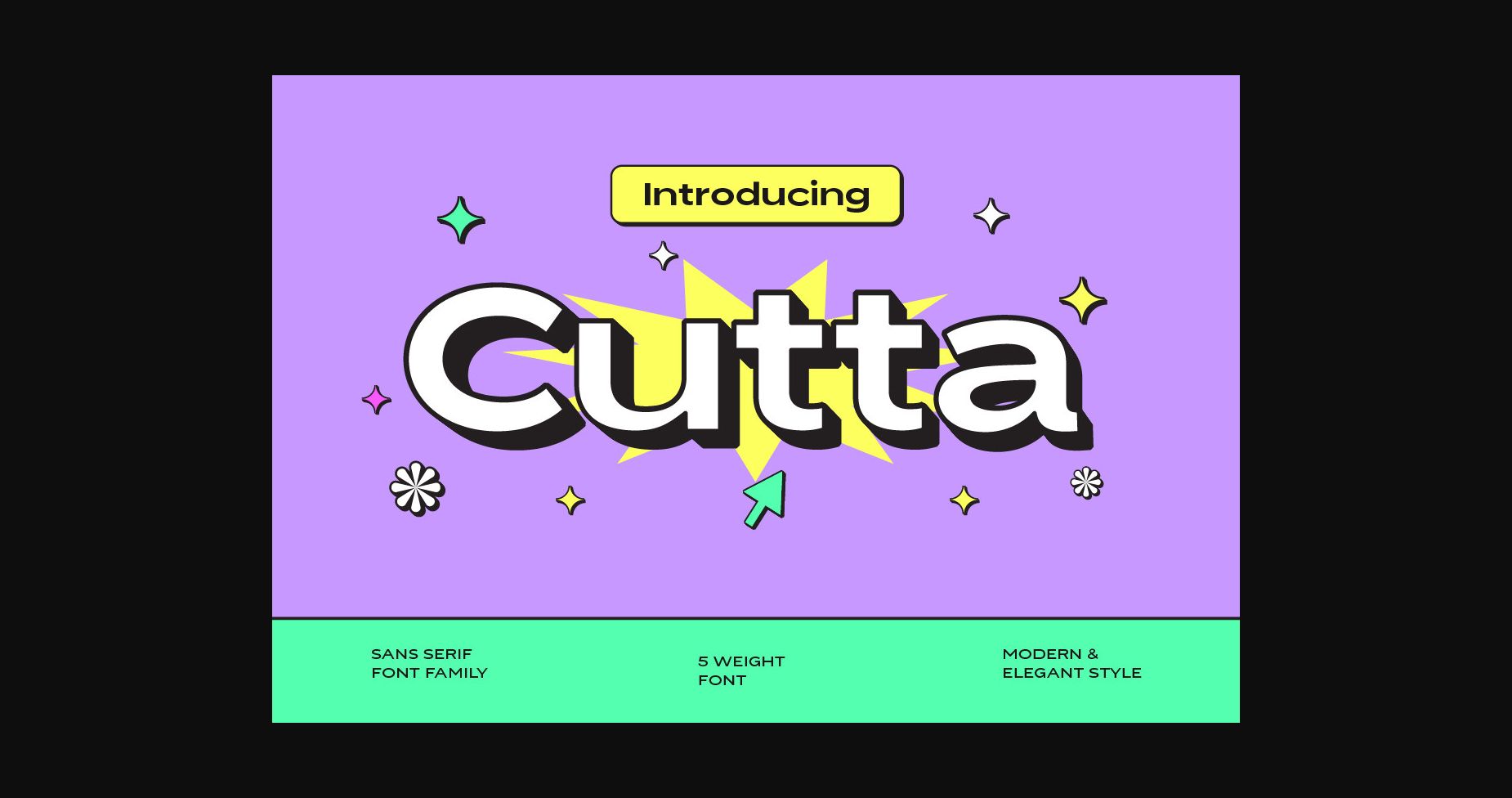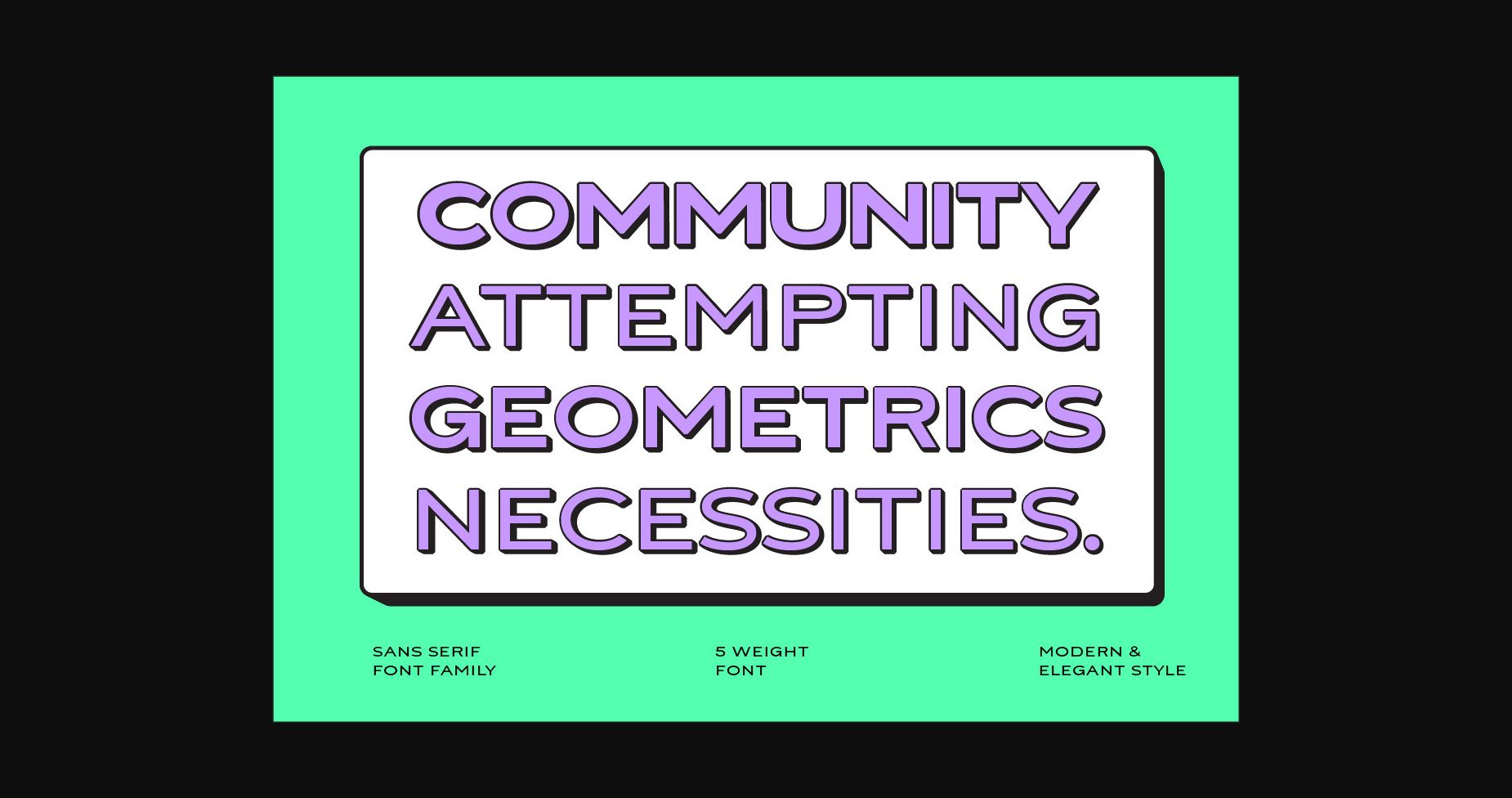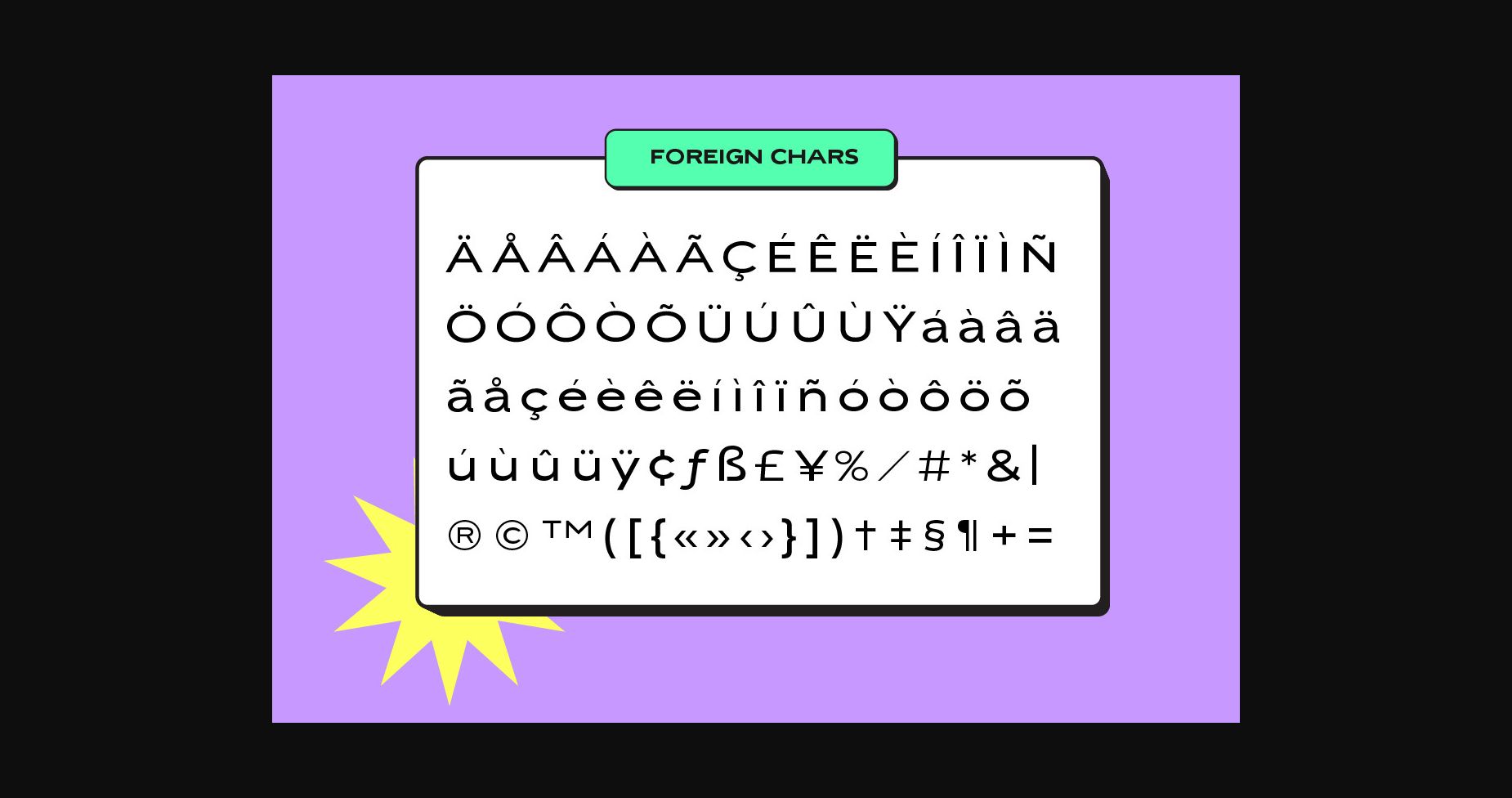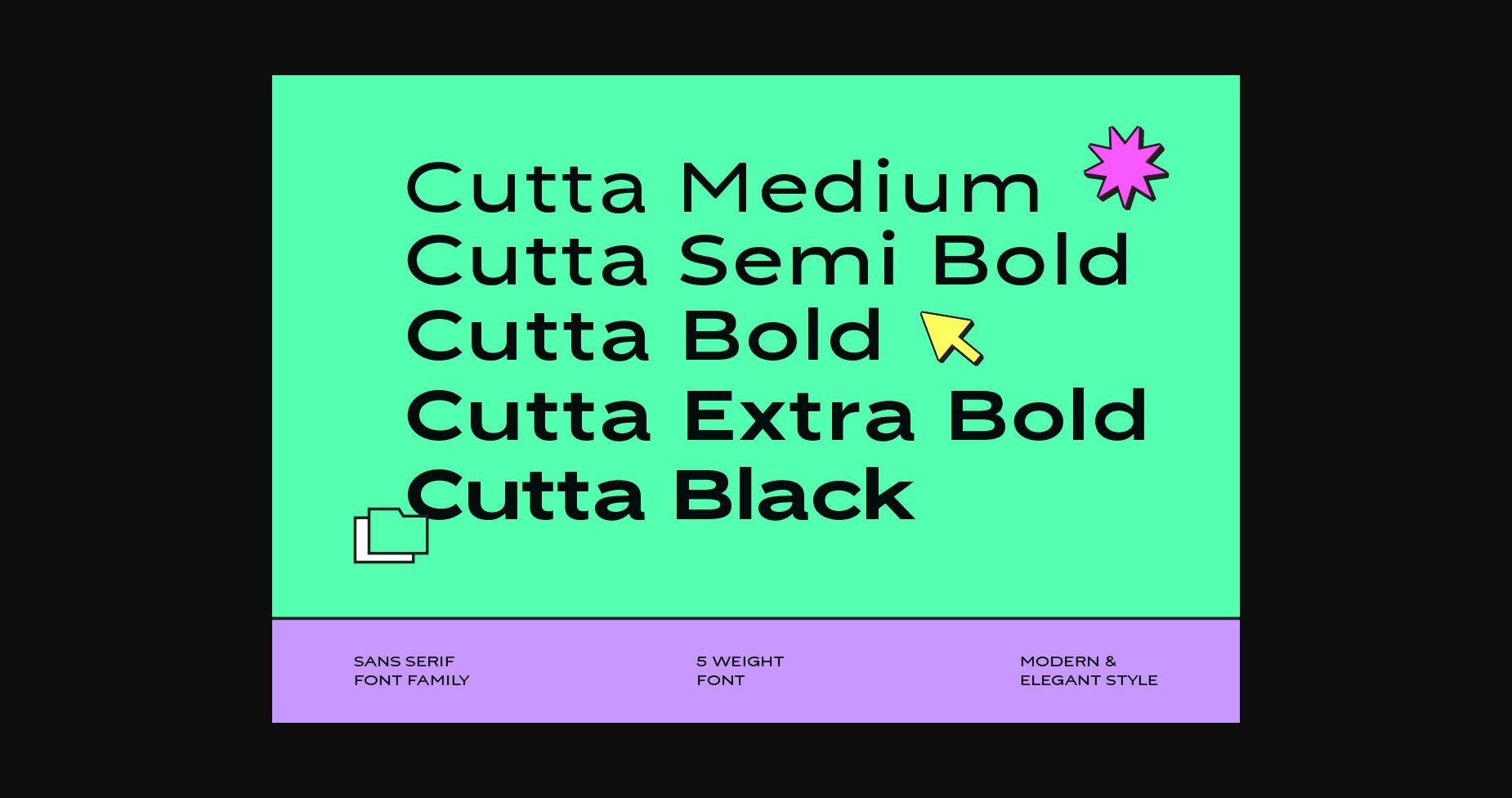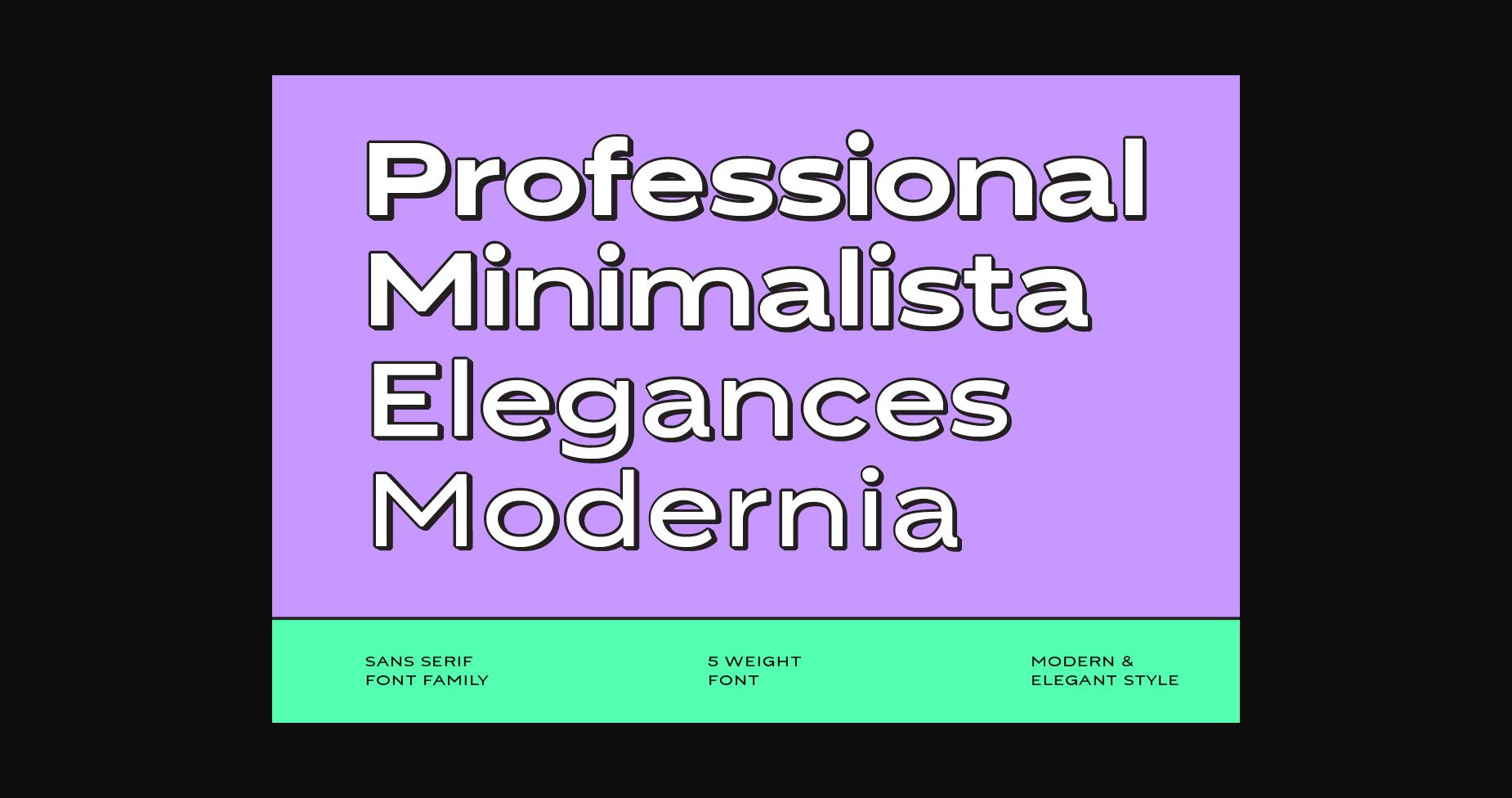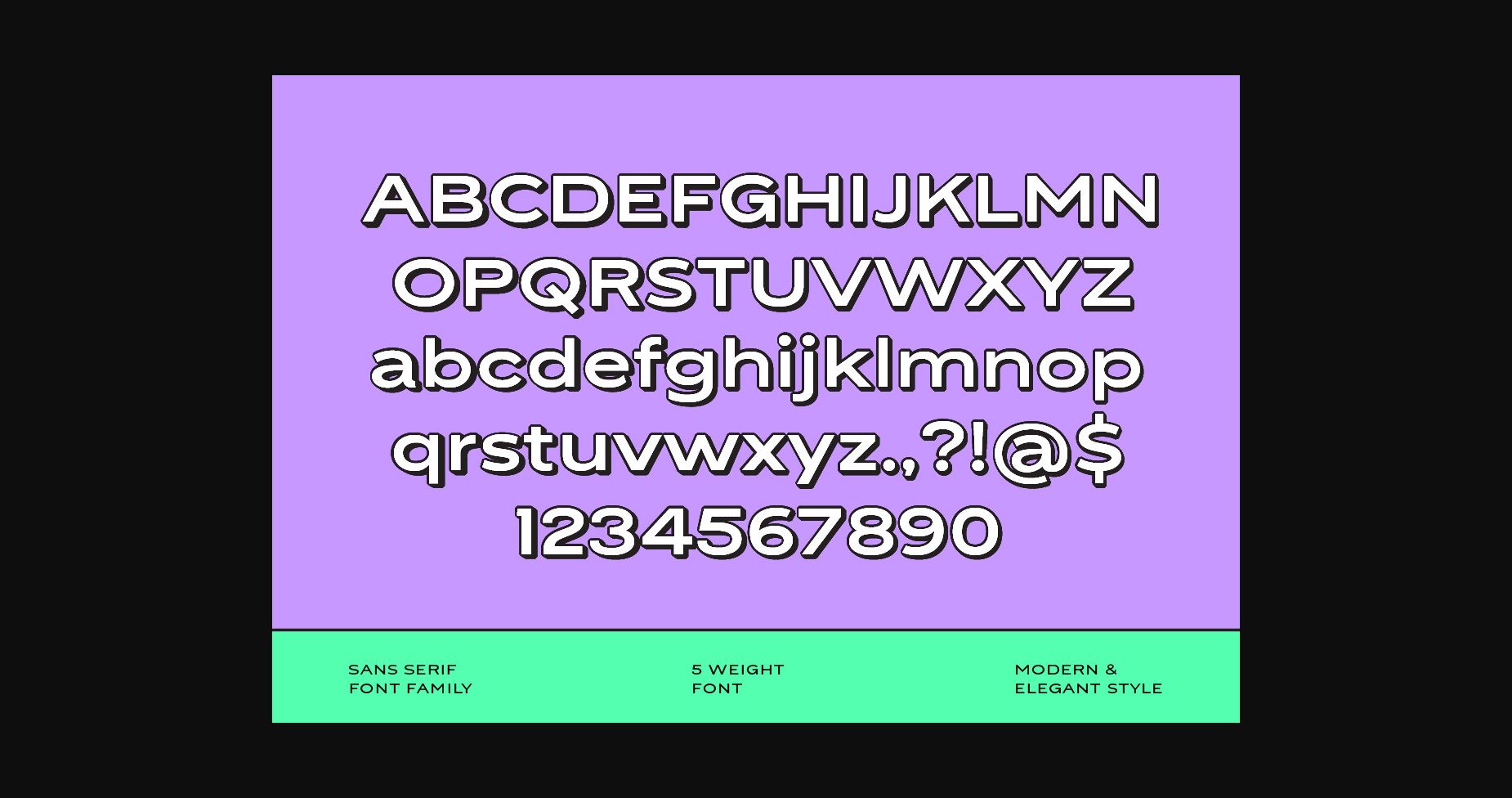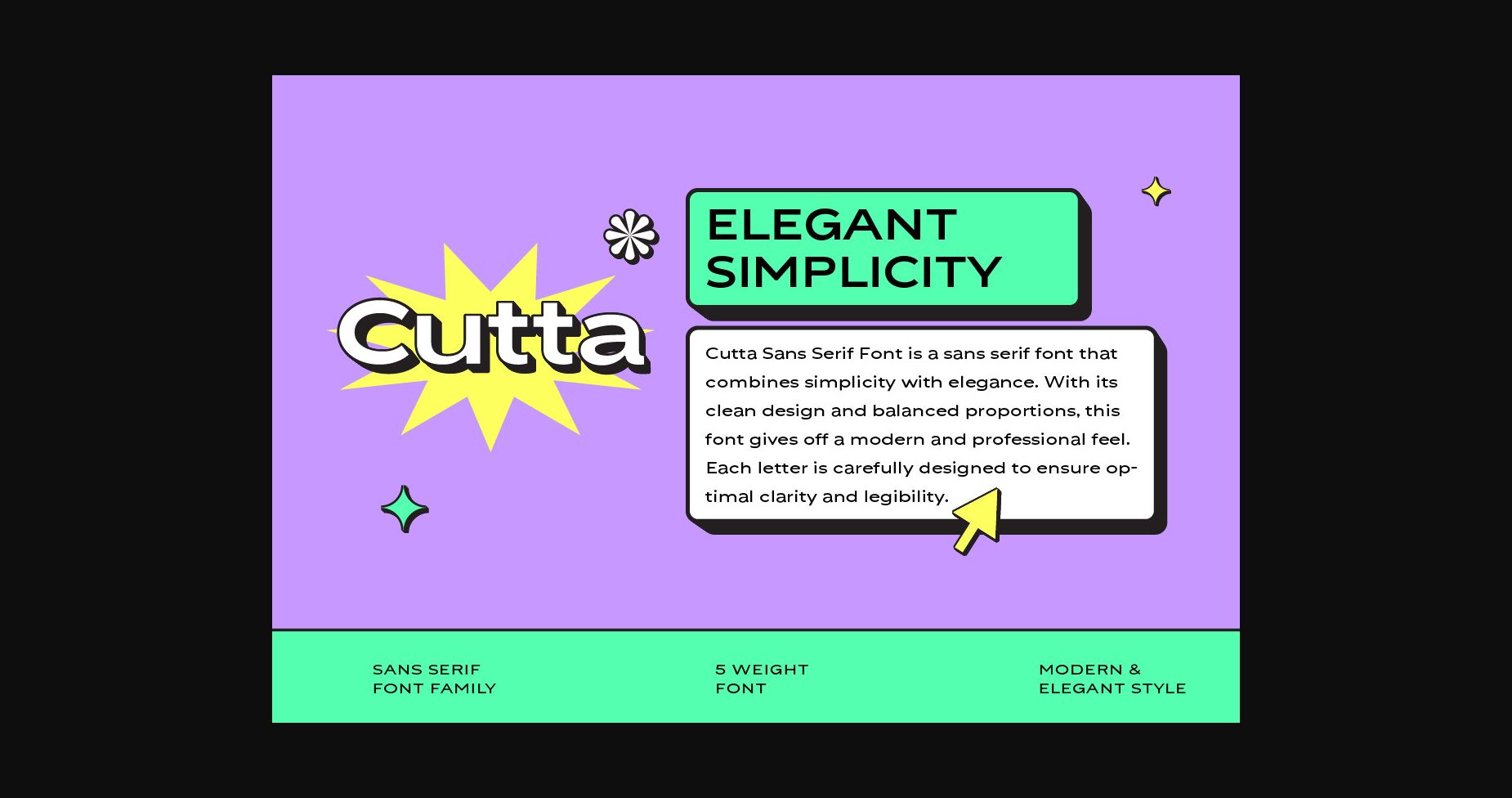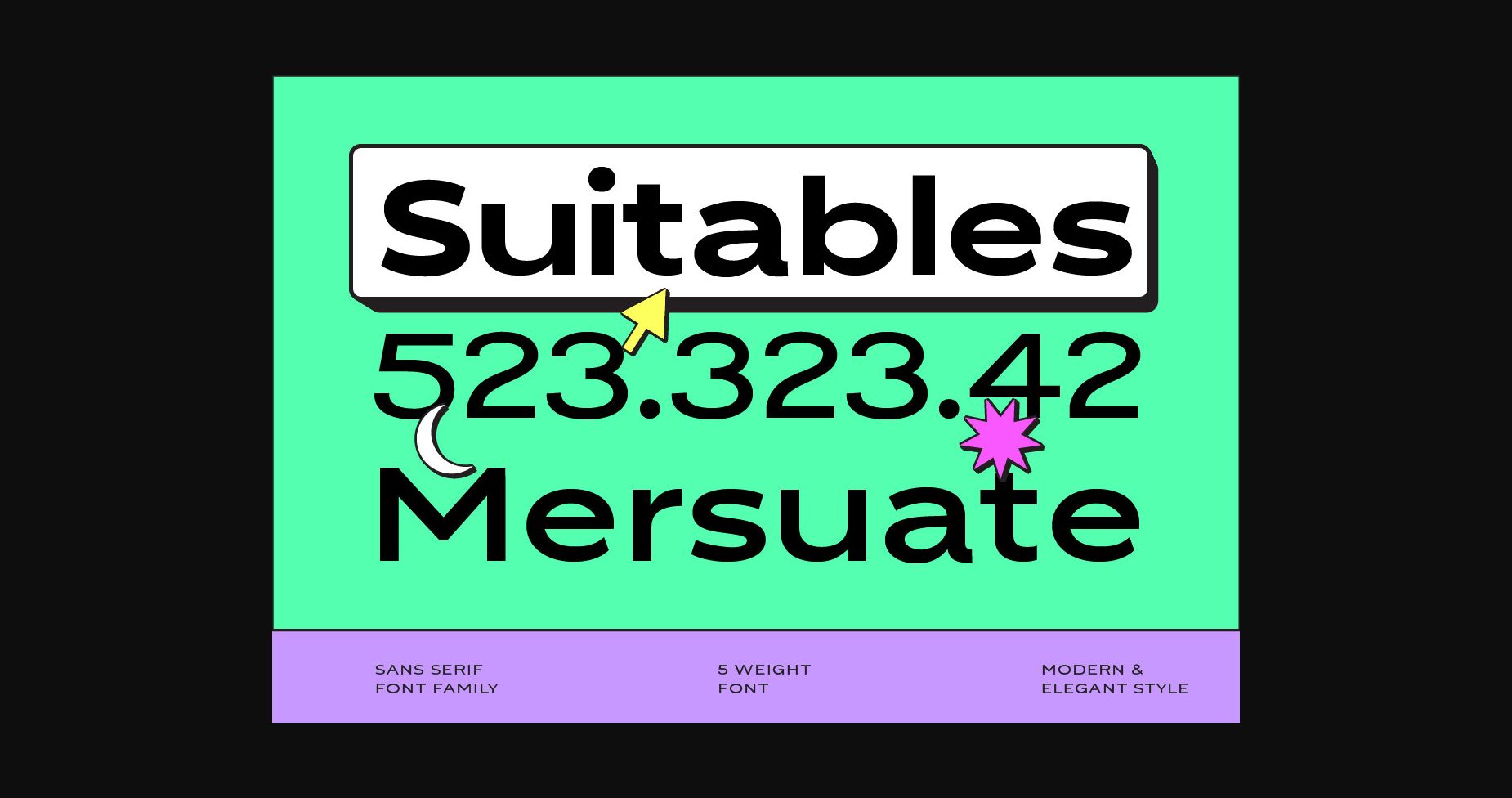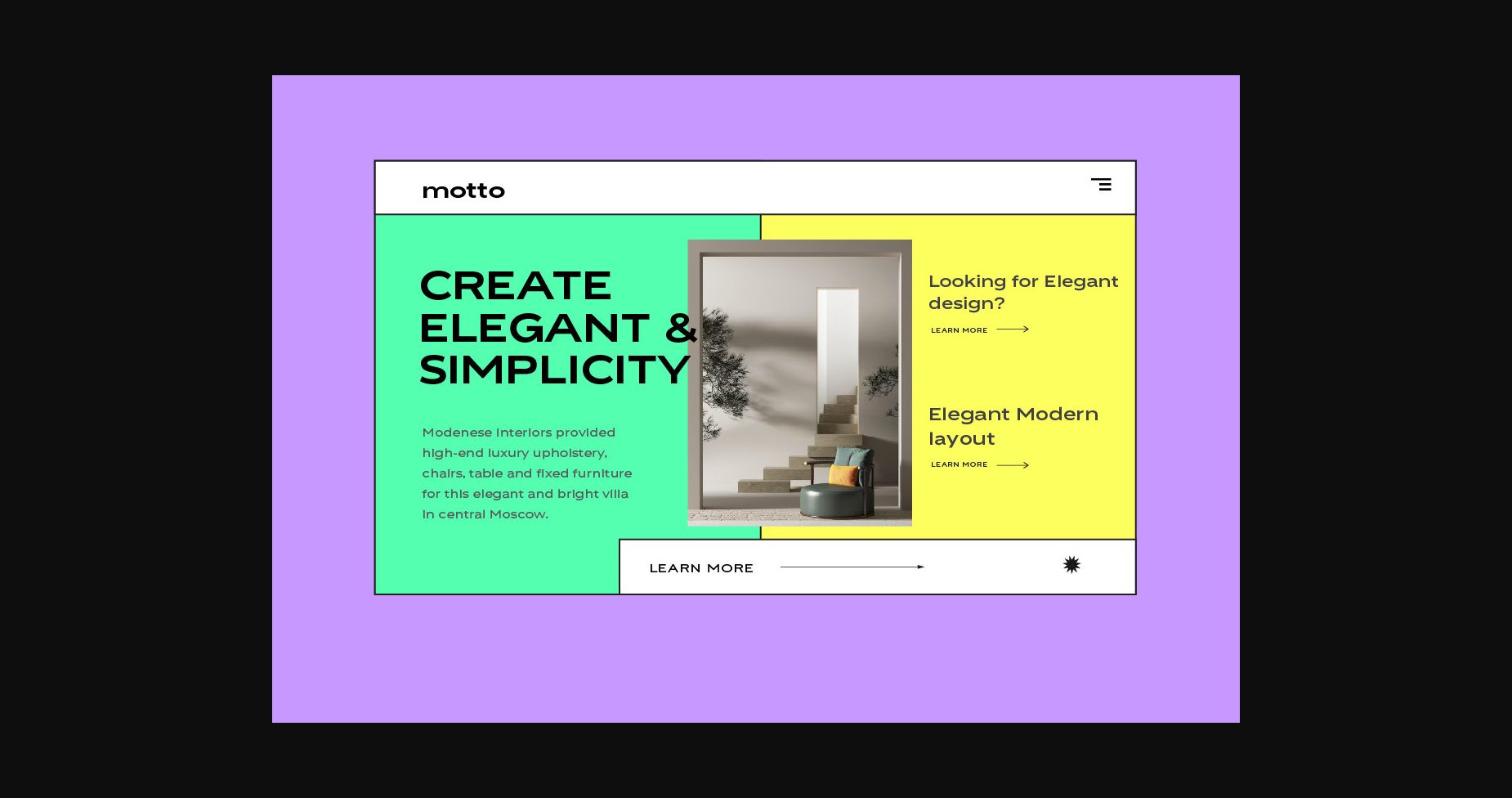
Cutta Font
About Cutta Font
Cutta Modern Sans Serif Fonts come in a variety of font styles, providing unlimited flexibility in expressing creativity. Ranging from sleeker and lighter styles to thicker and stronger styles, these fonts allow you to customize the appearance of your text according to your preferences and design needs.
Having a Cutta Modern Sans Serif Font in your design project will give it a fresh and modern look. This font is suitable for use in a variety of contexts, including graphic design, branding, layouts, posters, and more. With the ability to display messages clearly and in a contemporary style, this font will ensure that your designs look professional and up-to-date.